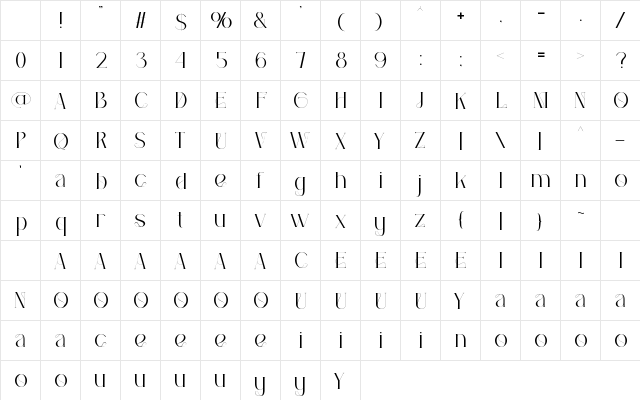
Complete ELMONZA Regular glyph index. Displaying only characters natively supported by ELMONZA Regular font.
ELMONZA is a composed and adaptable typeface that performs quietly and consistently across a wide range of design contexts.